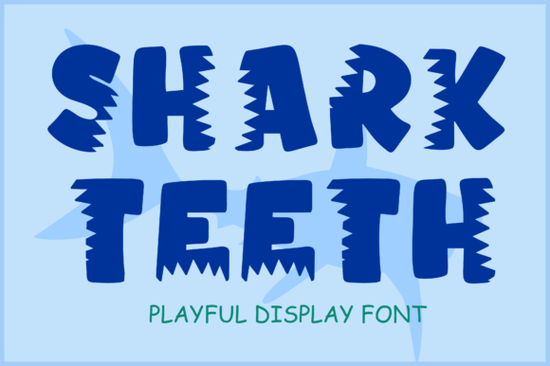
If you're looking for a font that adds a playful and energetic touch to your designs, the Shark Teeth Font is a great choice. Inspired by the sharp and bold look of shark bites, this display font is perfect for kids' projects, summer party invitations, beach-themed designs, and ocean-related branding.
Why Choose Shark Teeth Font?
The quirky and energetic shapes of Shark Teeth Font make every word pop with personality. Whether you're designing a fun invitation or creating a unique brand identity, this font brings a lively and engaging feel to your work. Its distinctive style is sure to catch the eye and add a bit of whimsy to any project.
Perfect for Kids' Projects and Summer Themes
One of the standout features of the Shark Teeth Font is its versatility. It's especially well-suited for kids' projects, where a playful and bold font can make a big difference. Imagine using it for a summer camp flyer, a birthday party invitation, or even a classroom poster. The font's unique design will instantly capture the attention of both children and adults alike.
Bonus Graphics: Shark Silhouettes
How to Use Shark Teeth Font in Your Designs
Using the Shark Teeth Font in your designs is straightforward. Here are some tips to get the most out of this font:
- Experiment with Colors: Try different color combinations to see what works best for your project. Bright, bold colors can complement the playful nature of the font.
- Mix with Other Fonts: While Shark Teeth Font is a standout on its own, you can also mix it with other fonts to create a balanced and dynamic design. Consider pairing it with a more traditional serif or sans-serif font for contrast.
- Use in Different Contexts: Don't limit yourself to just one type of project. The font can be used in a variety of contexts, from digital designs to print-on-demand products like t-shirts and mugs.
Tips for Using Shark Teeth Font Effectively
To make the most of the Shark Teeth Font, here are a few additional tips:
- Test Readability: Make sure the font is still readable at smaller sizes. While it's designed to be bold and playful, it's important that your text remains clear and legible.
- Play with Spacing: Adjust the spacing between letters (kerning) and lines (line height) to achieve the desired effect. This can help balance the boldness of the font and make it fit better in your design.
- Combine with Graphics: Use the included shark silhouettes to enhance your designs. These graphics can be used as background elements or as part of a larger composition.
Final Checklist for Using Shark Teeth Font
Before you start using the Shark Teeth Font in your designs, here’s a quick checklist to ensure you’re ready to go:
- Test the font in different sizes and colors to see what works best for your project.
- Experiment with combining the font with the included shark silhouettes and other design elements.
- Consider using the font in various contexts, such as digital designs, print-on-demand products, and physical crafts.